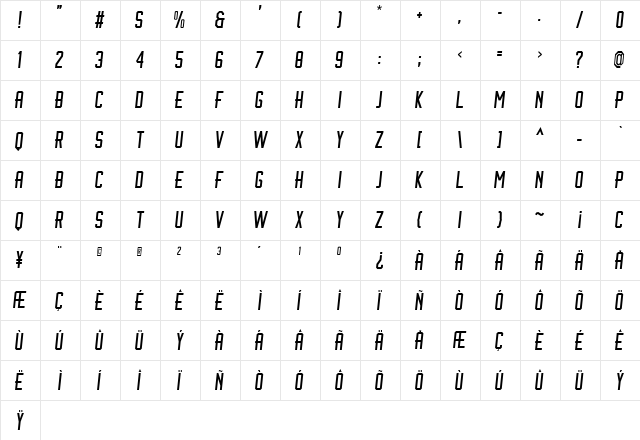
BrotherJhonBoldItalic Regular Font Preview
Design Context for BrotherJhonBoldItalic Typeface
BrotherJhonBoldItalic takes a measured approach to typography — its balanced proportions and neutral character make it a reliable workhorse for both digital and print work. The slanted form adds forward momentum and visual energy. The heavy weight commands attention and anchors typographic hierarchies.
Pro Tip: Try BrotherJhonBoldItalic for annotation and caption copy alongside an upright companion — the contrast in angle creates a dynamic but ordered typographic system.